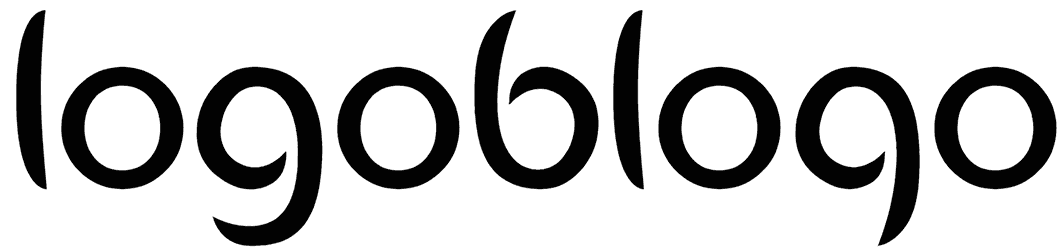
Logobloqo 2 Font
If you are looking for a modern sans serif font, we have a special offer, such as Logobloqo 2, for you. This masterpiece comes with curved characters, so it carries a sense of dynamic, futuristic, and delicate. We offer…
If you are looking for a modern sans serif font, we have a special offer, such as Logobloqo 2, for you. This masterpiece comes with curved characters, so it carries a sense of dynamic, futuristic, and delicate. We offer you to make the best possible outcomes out of this logo font without paying attention to the lack of uppercase letters or numbers.